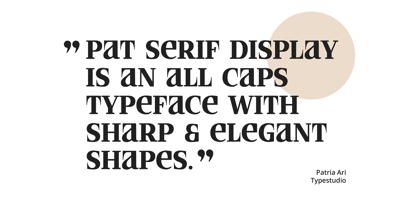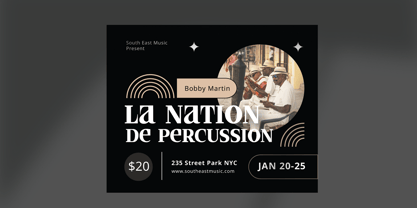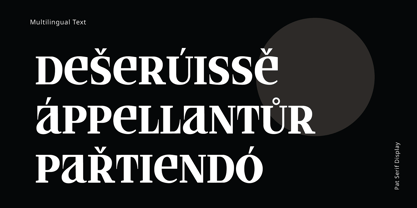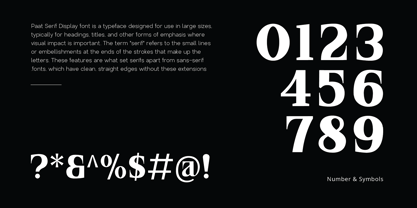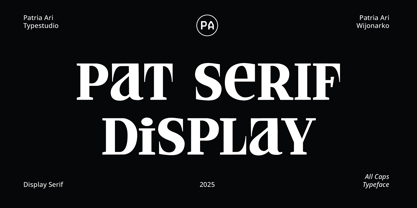
PAT Serif Display
by Patria Ari
The PAT Serif Display Font Family was designed by Patria Ari Wijonarko and published by Patria Ari. PAT Serif Display contains 1 styles. More about this family
PAT serif display is an all caps typeface with sharp & elegant shapes. This typeface designed for use in large sizes, typically for headings, titles, and other forms of emphasis where visual impact is important.
Designers: Patria Ari Wijonarko
Foundry: Patria Ari